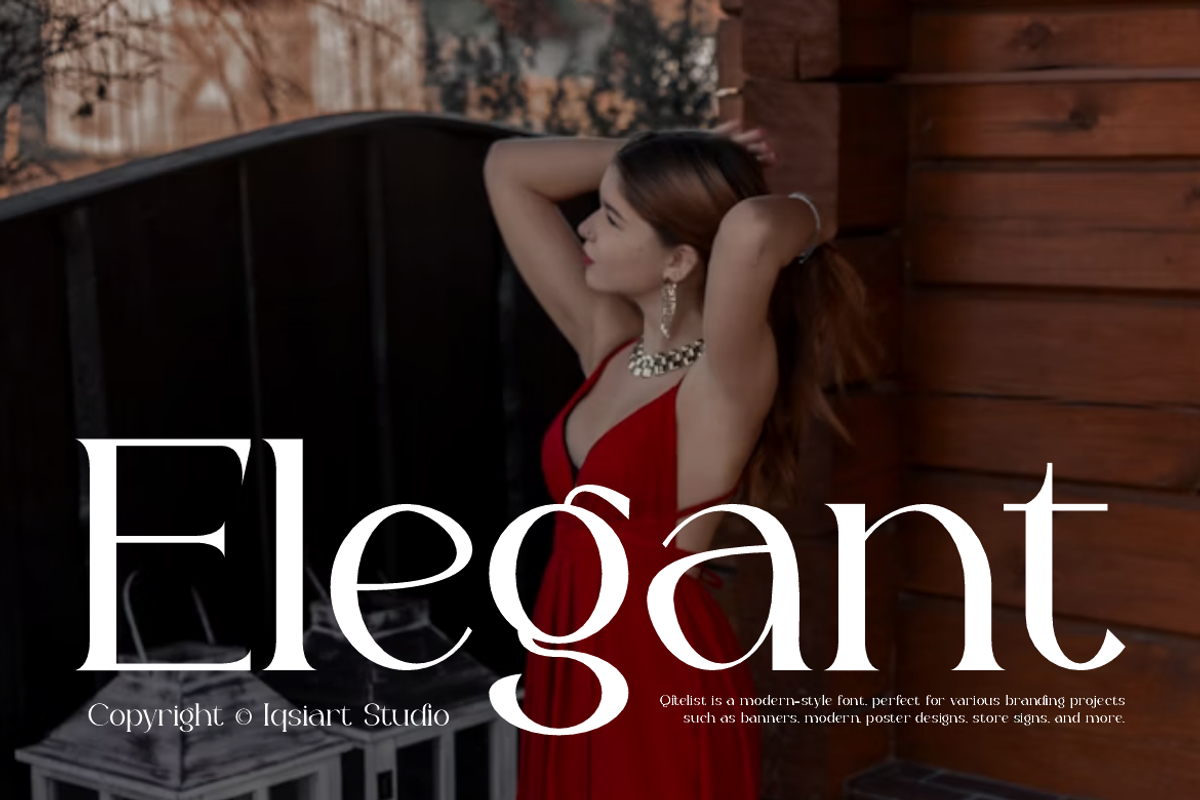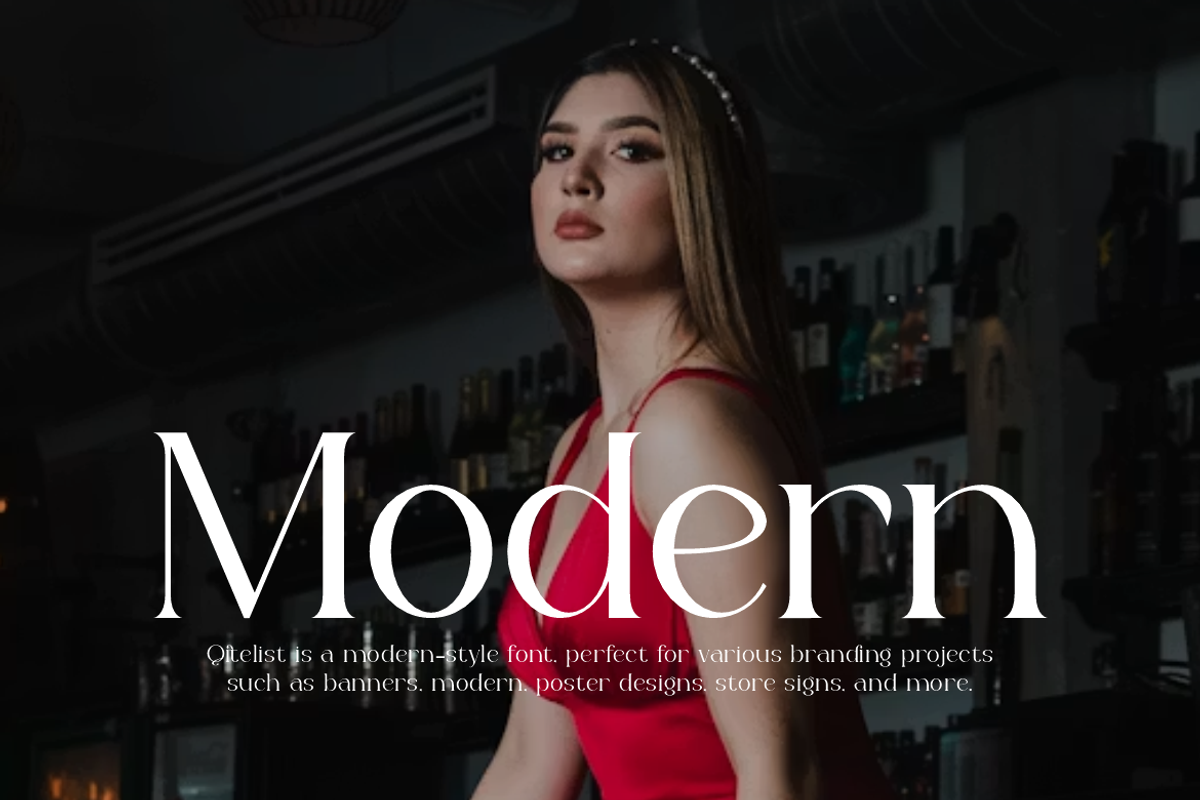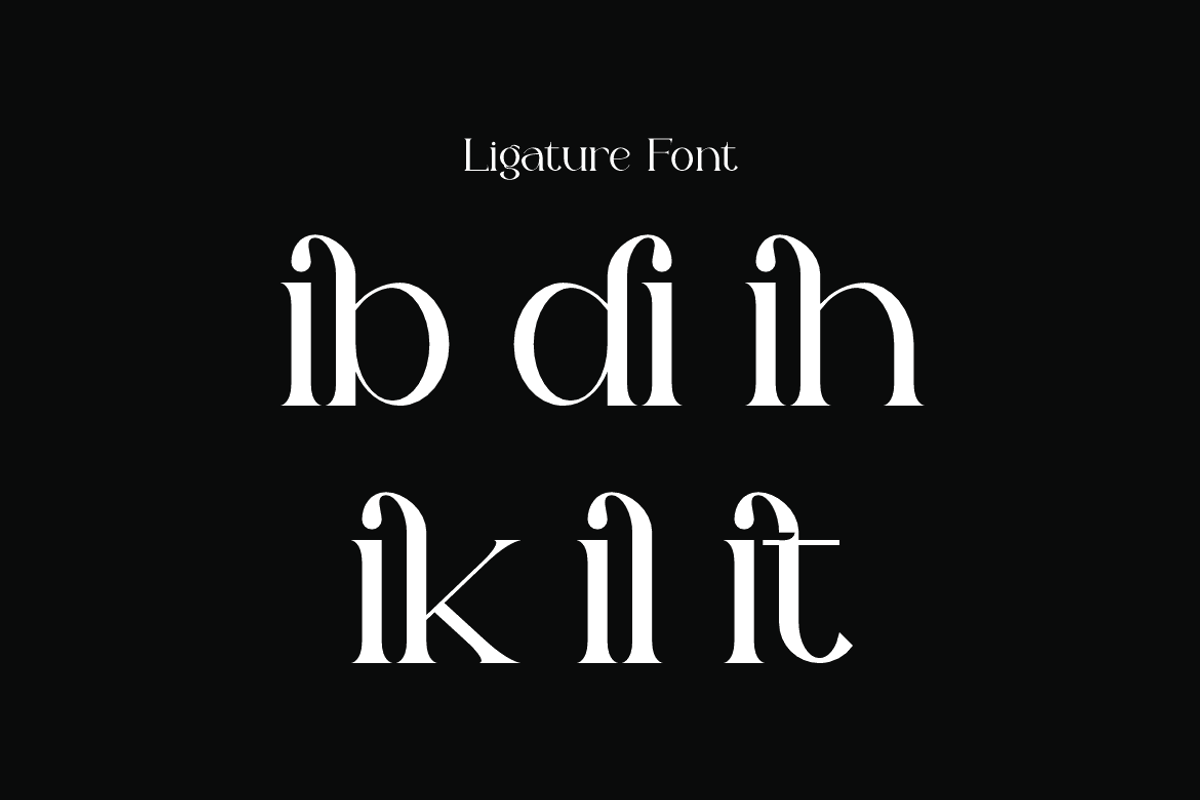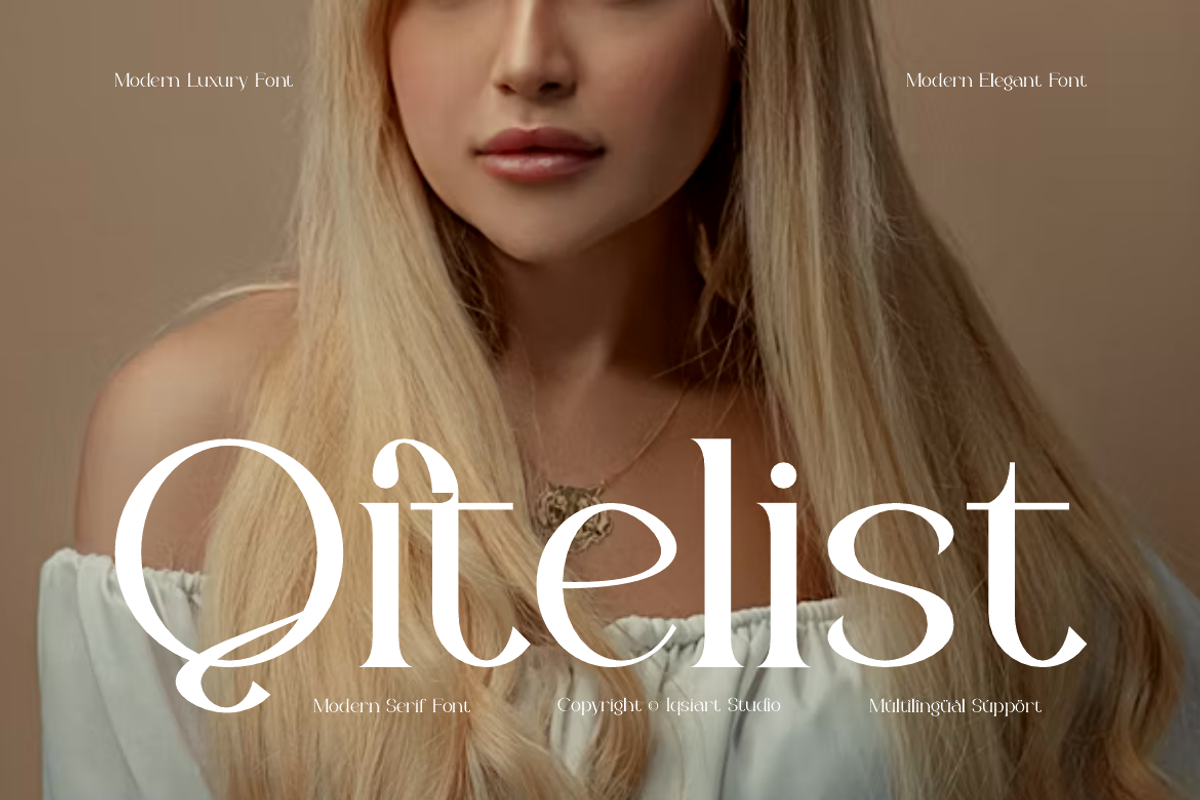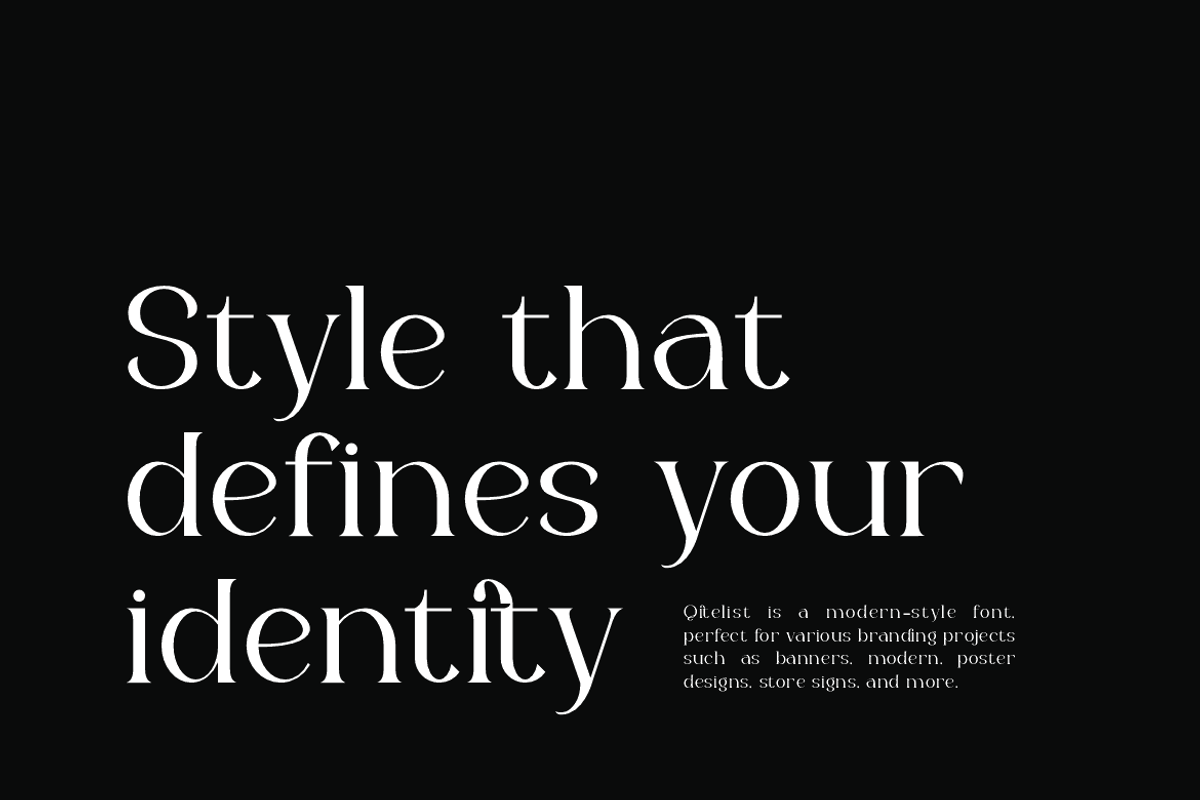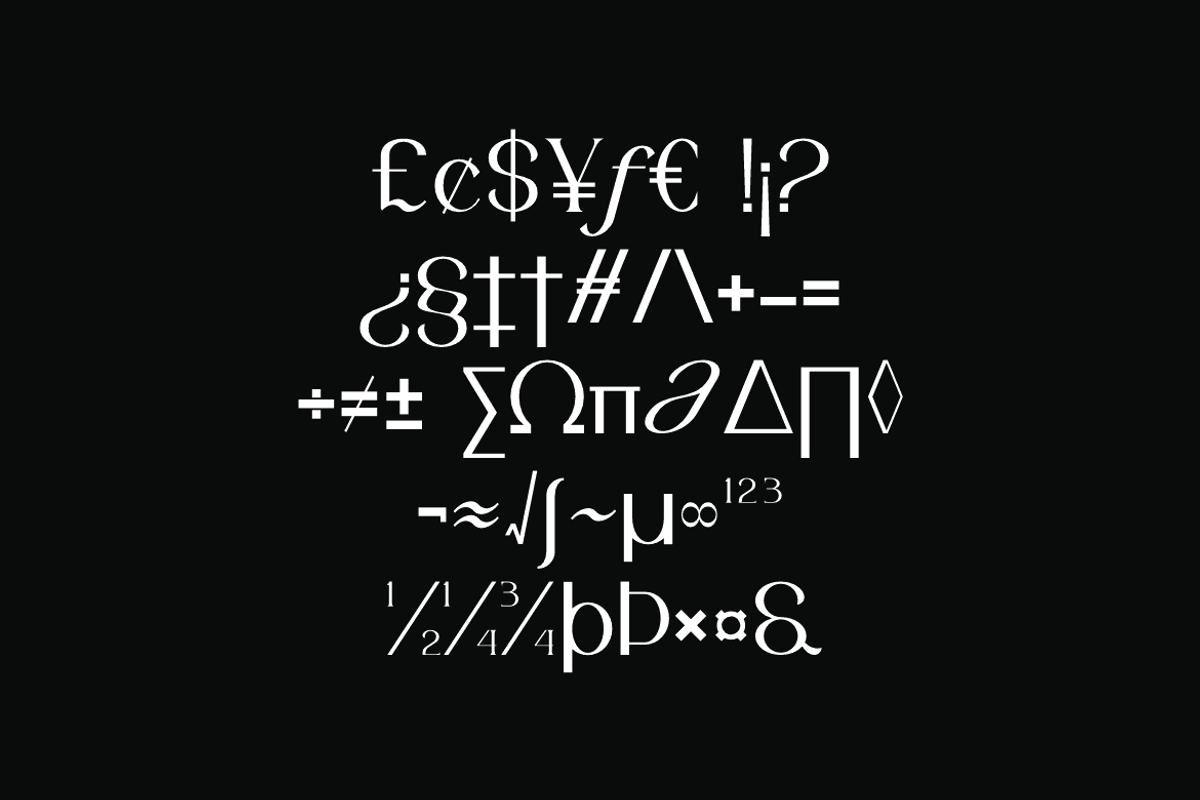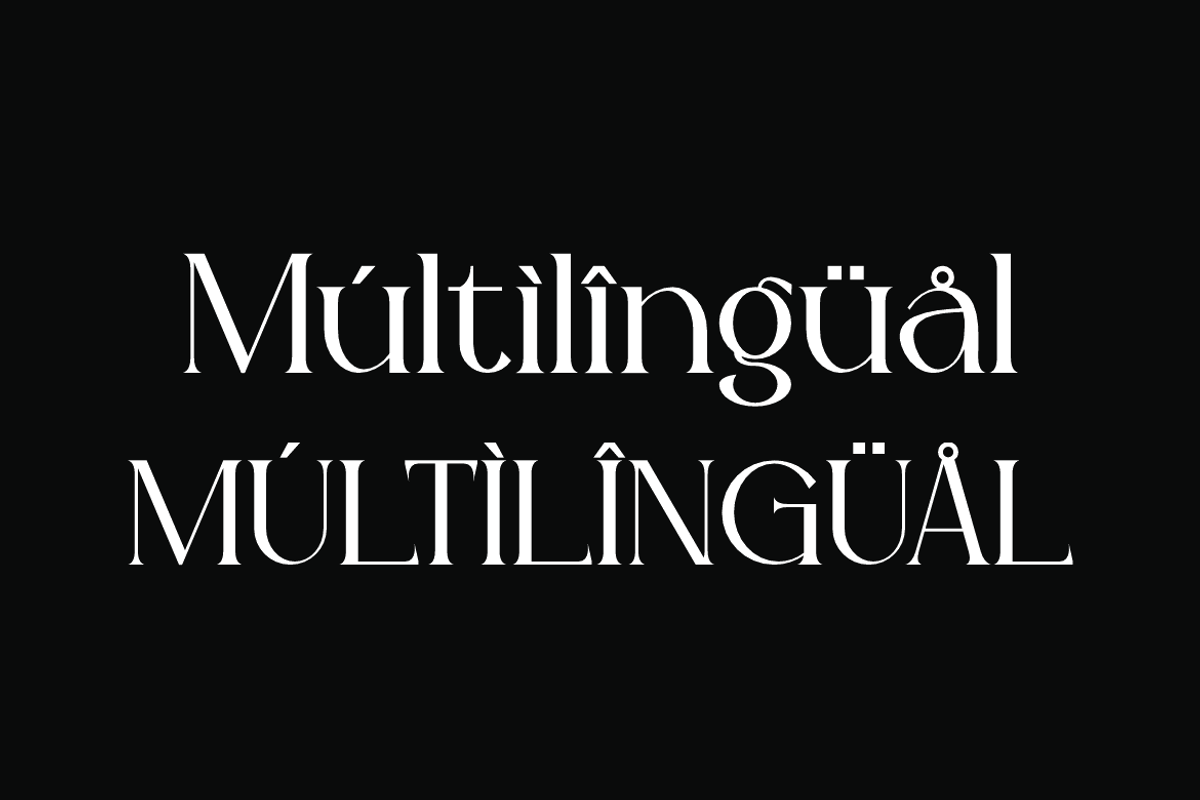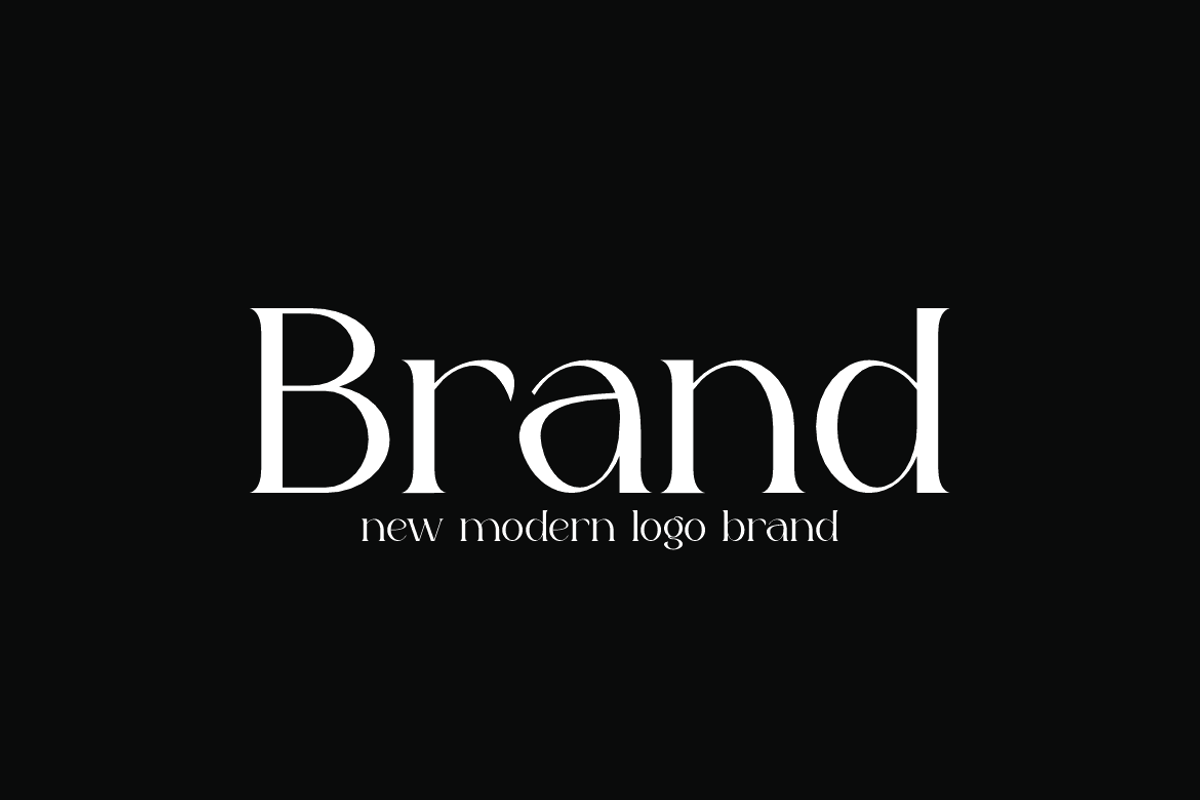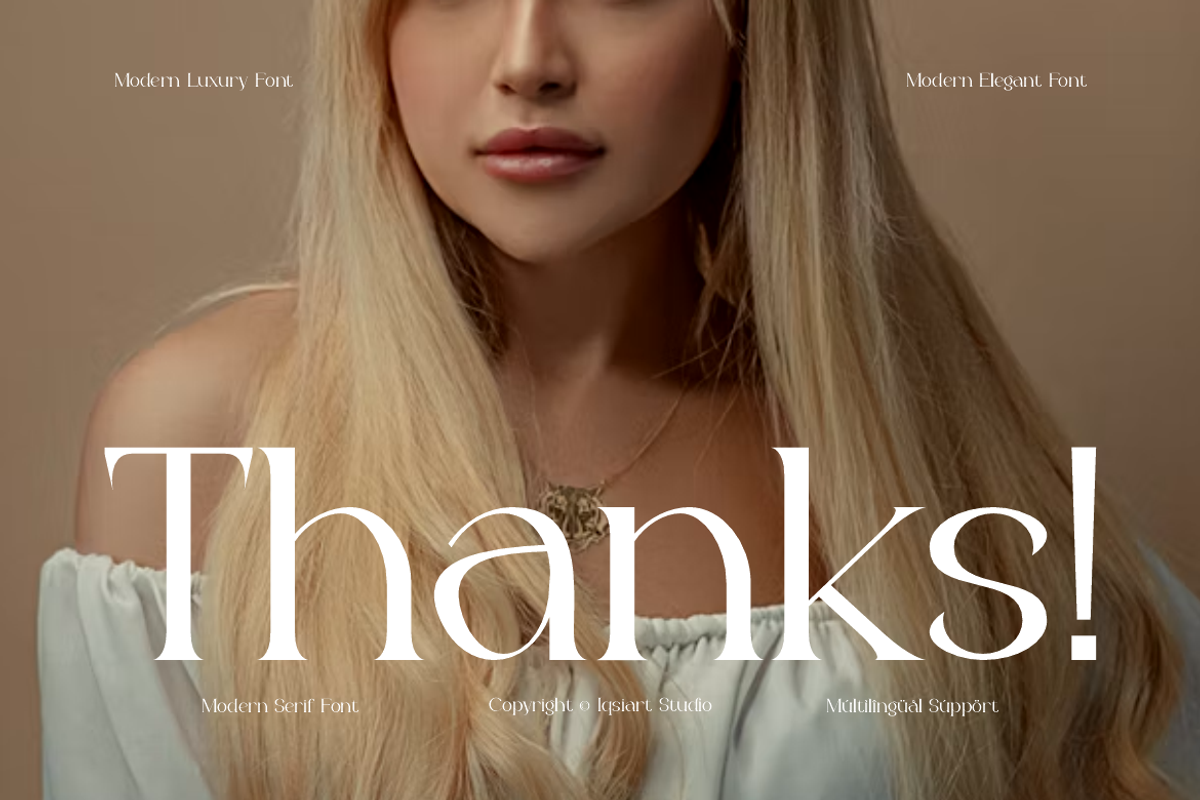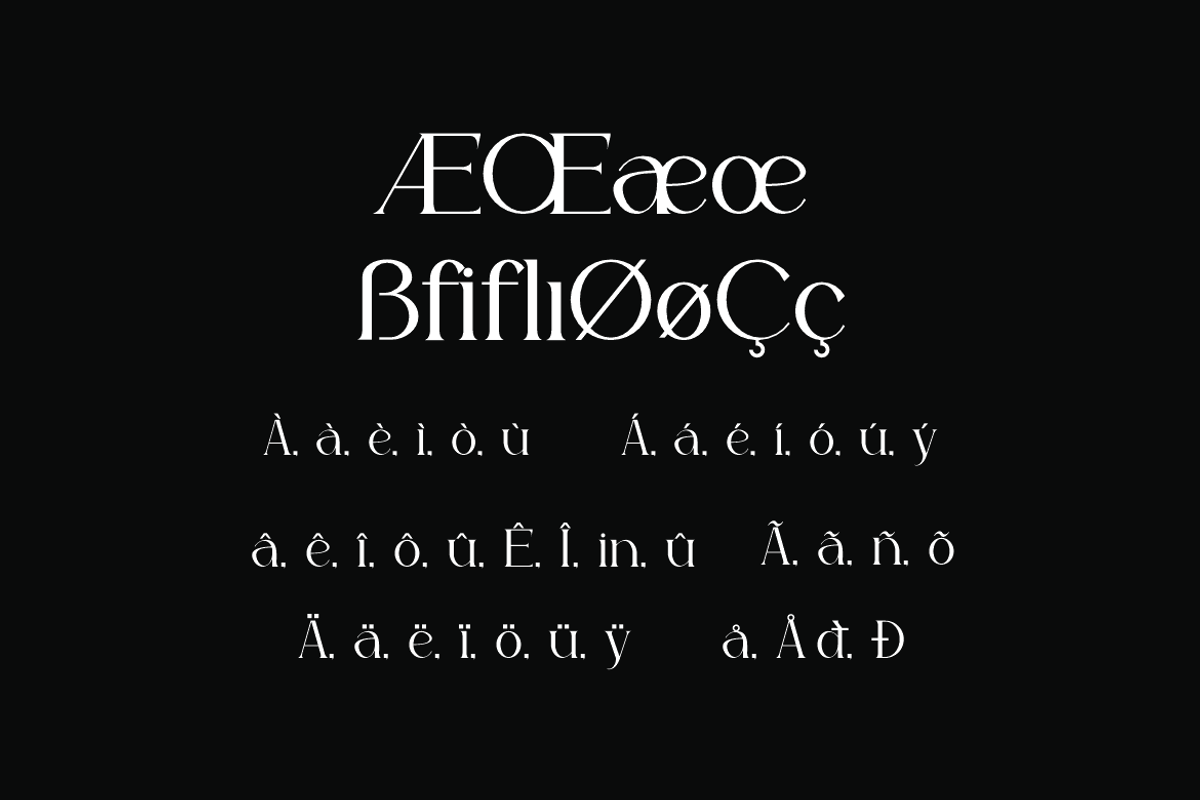
Qitelist - Elegant Serif Font
Qitelist Font is a serif and authentic display typeface
that suits a variety of design needs. We offer a wide range of themes